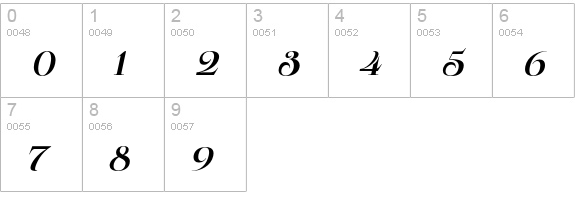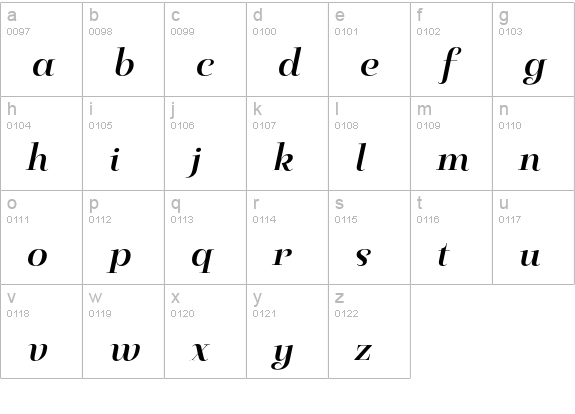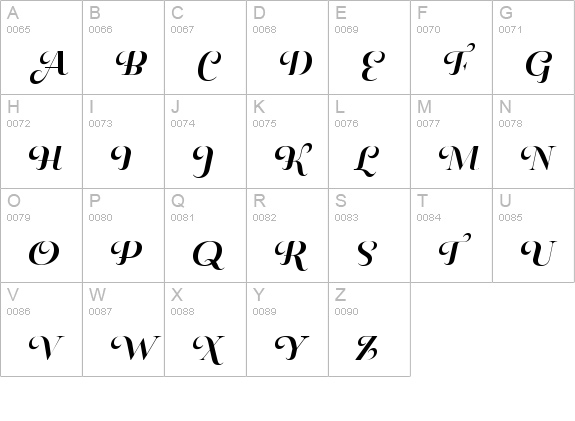
Pauline Didone Bold Italic is a strong, high-contrast, italic variant in the Pauline typeface family \xE2\x80\x94 well suited to headlines, attention-grabbing titles, and strong calls-to-action.
Pauline Didone Bold Italic font is a striking and elegant typeface that exudes sophistication and style. With its bold weight and italicized design, this font is perfect for creating eye-catching headlines, titles, and branding materials. The sharp, clean lines and graceful curves of Pauline Didone Bold Italic add a touch of class to any project. And the best part? This stunning font is available for free download at FontsMarket.com. Whether you're working on a professional design project or simply want to elevate your personal creations, Pauline Didone Bold Italic is a versatile and timeless choice. Don't miss out on this opportunity to enhance your designs with this exquisite typeface – download it for free today!